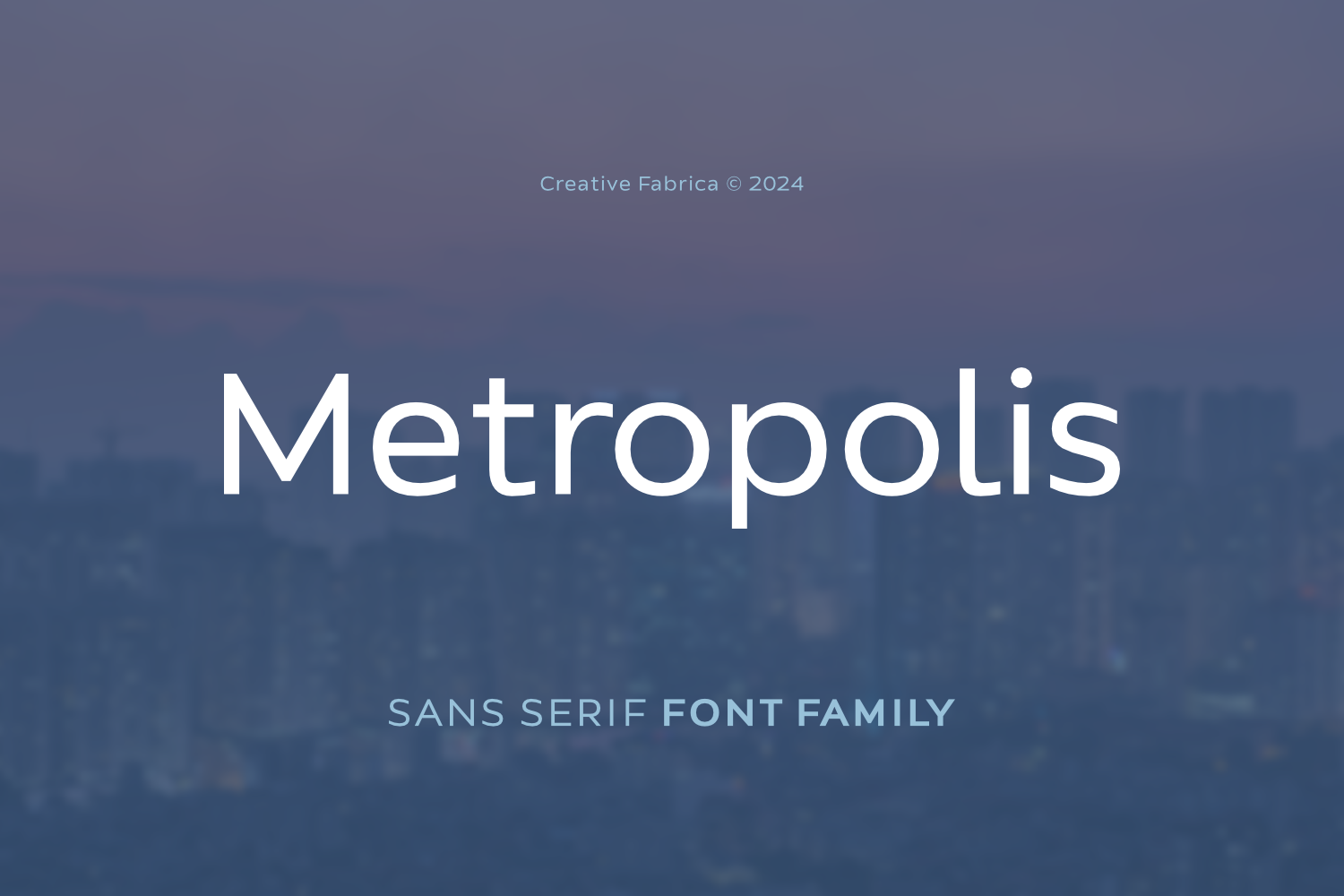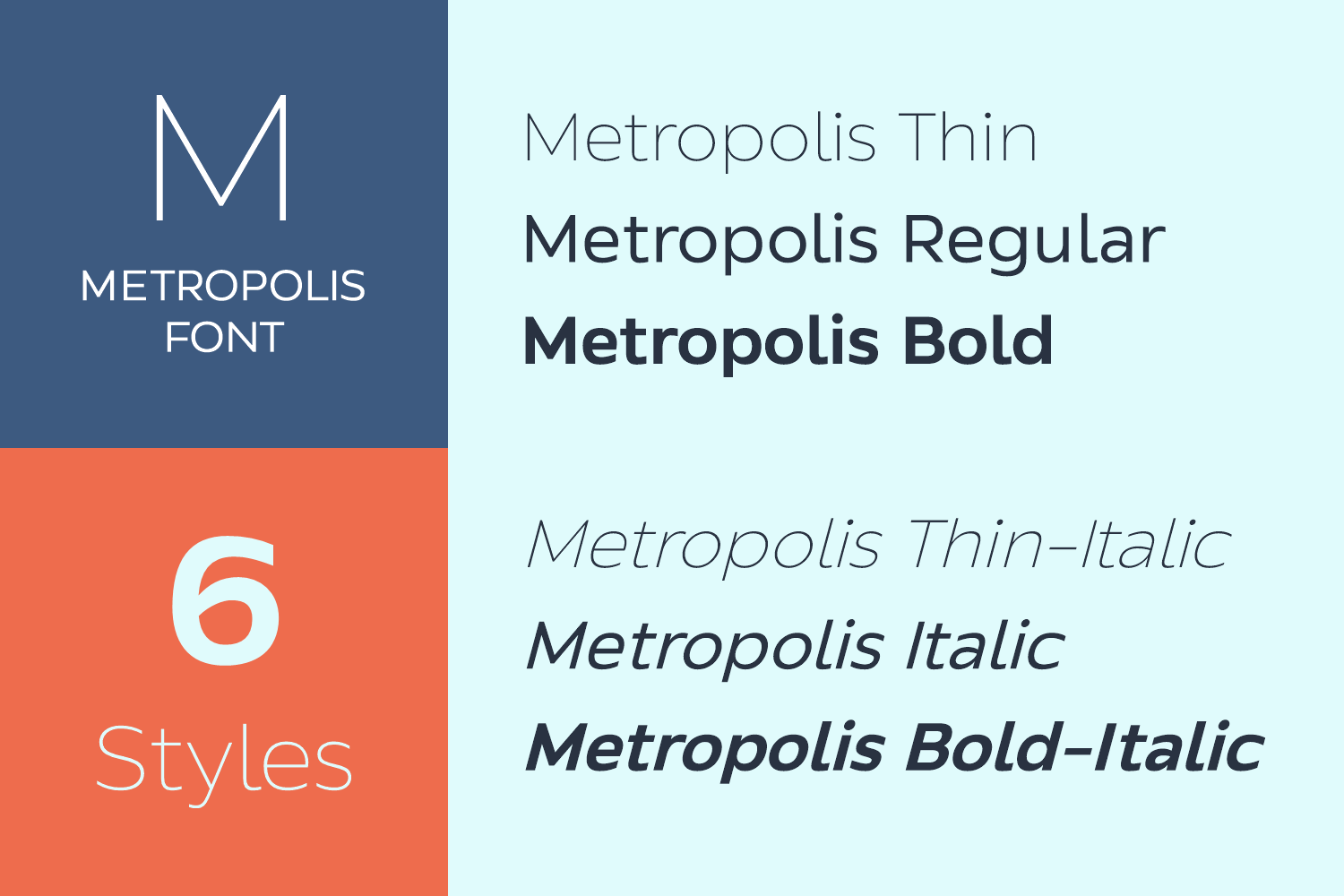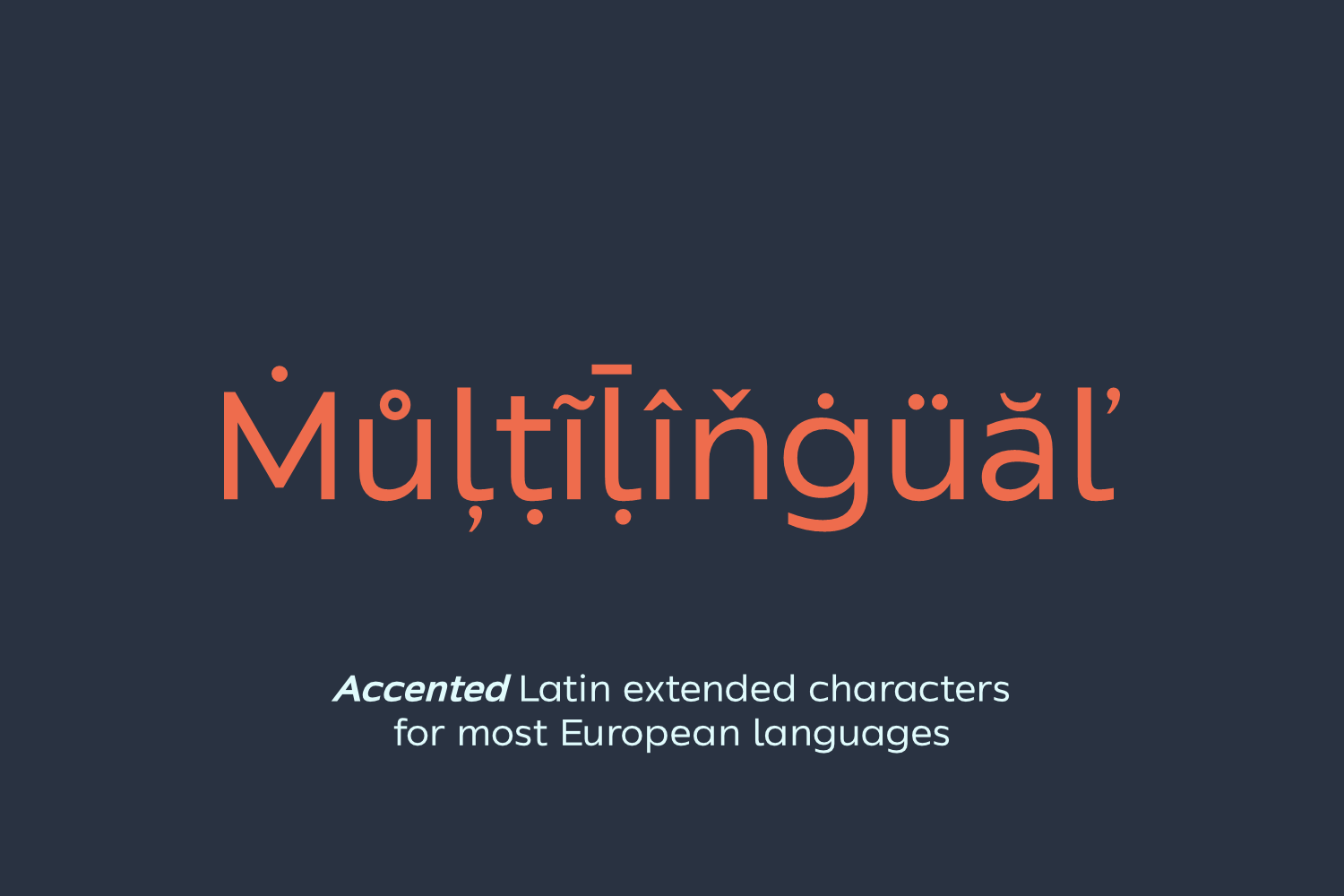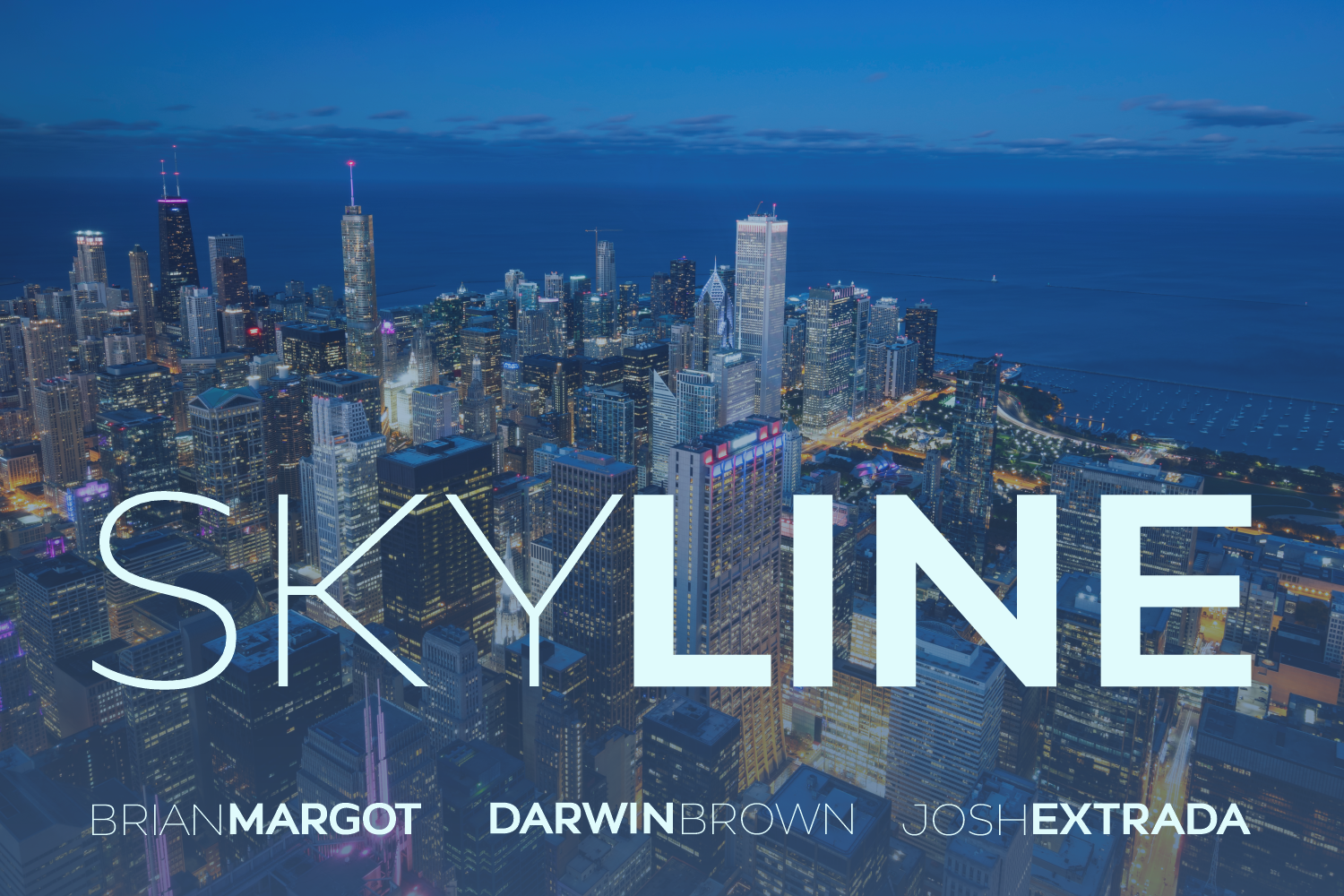
Metropolis Font
Metropolis is a modern, versatile typeface inspired by the iconic Gotham but with a fresh, refined approach. Ideal for branding, editorial, and digital applications, Metropolis blends geometric precision with a warm, inviting touch, making it perfect for both headlines and body text. Its sleek lines and balanced proportions bring clarity and sophistication to any project, ensuring your message stands out with elegance and impact.